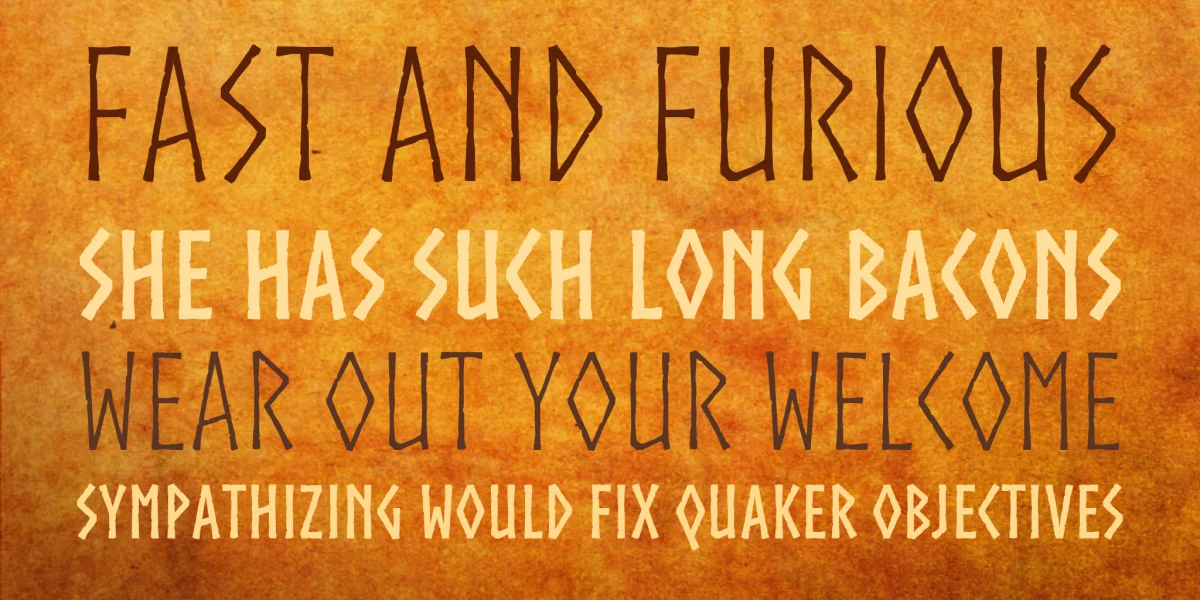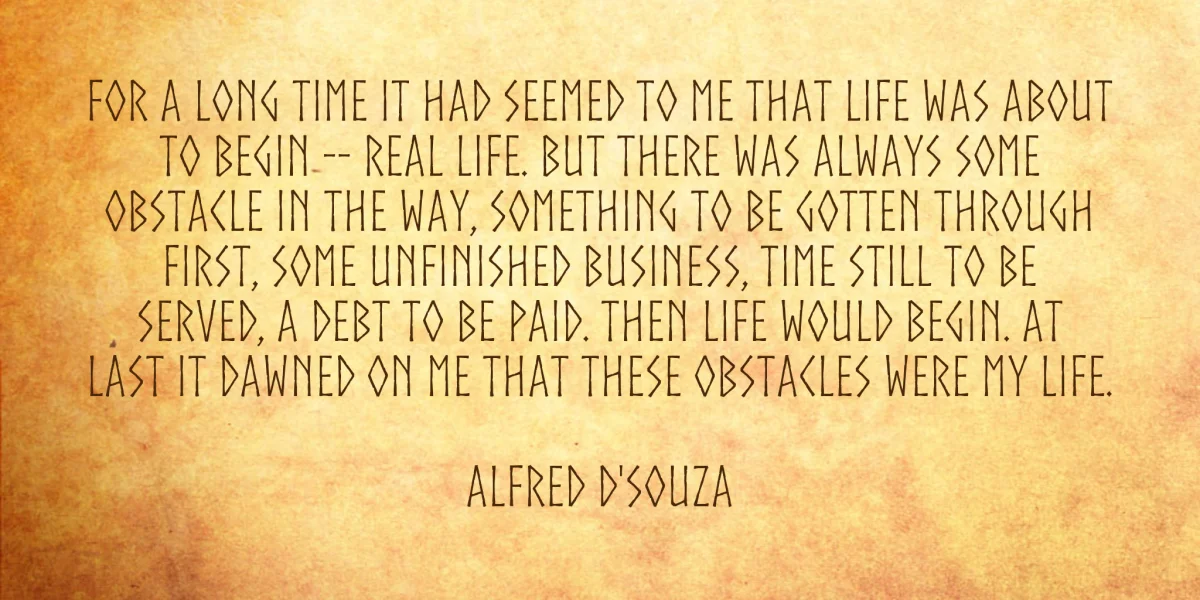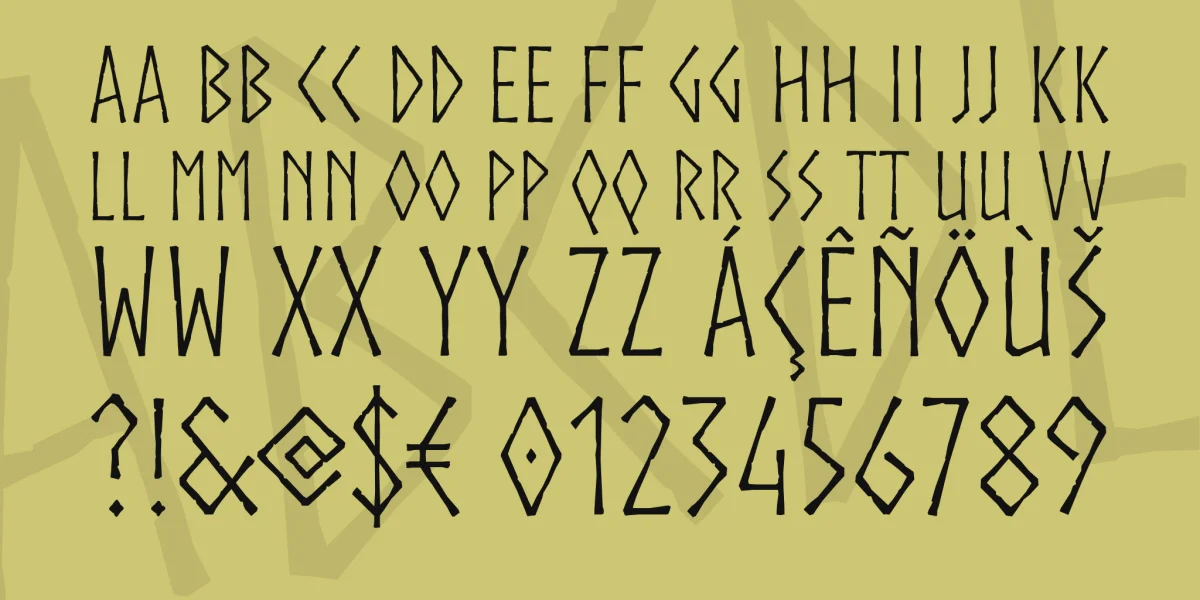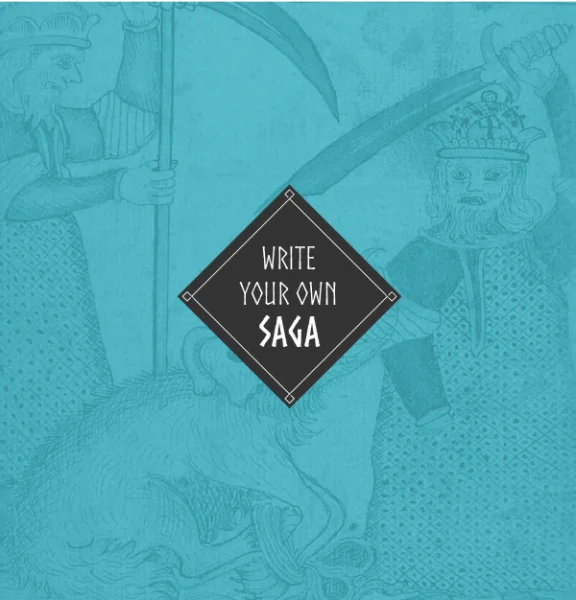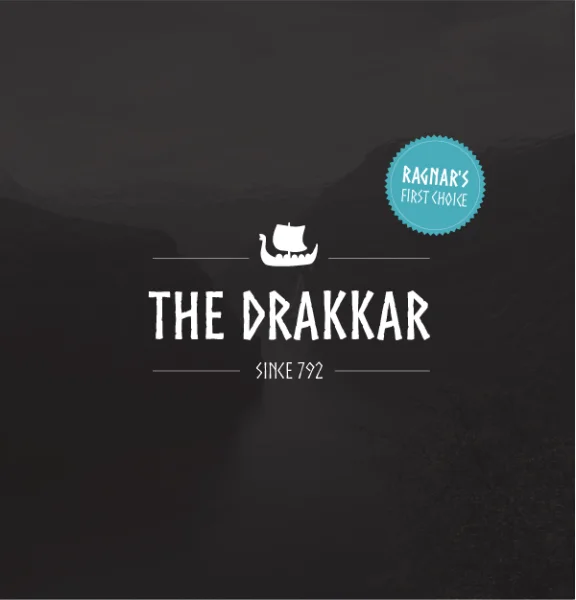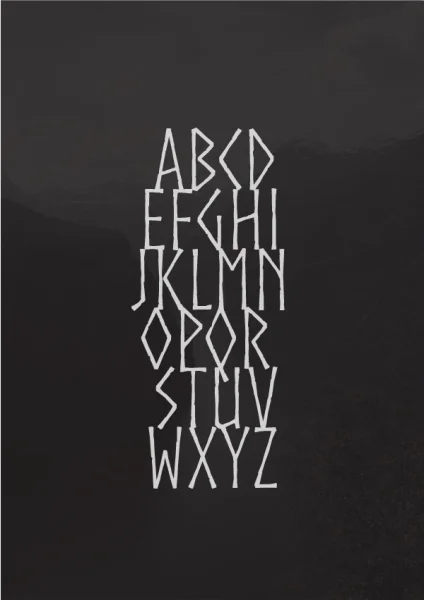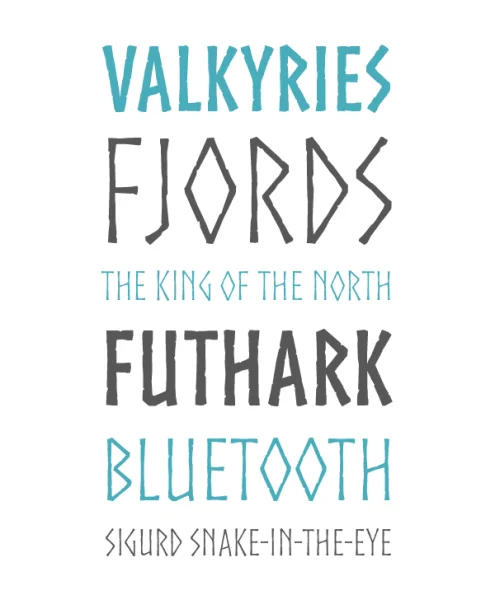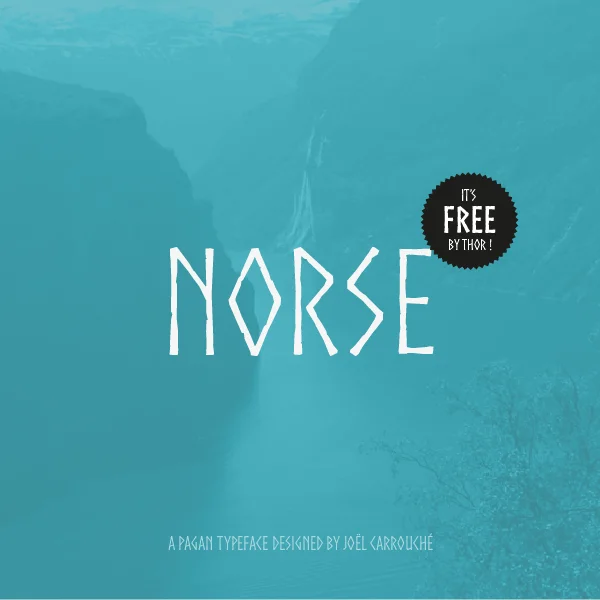
Norse is a typeface designed mostly for the fun, inspired by nordic epigraphy: runes, futhark, or whatever you call them. It is perfectly suited for pagan magazines, drakkar tv commercials or Valhalla invitation cards. The fonts even include an complete runic alphabet with unicode support, which is highly useless but totally badass. Norse is free for personnal and commercial use. If you use it for something cool, let me know (or face Odin's wrath) !